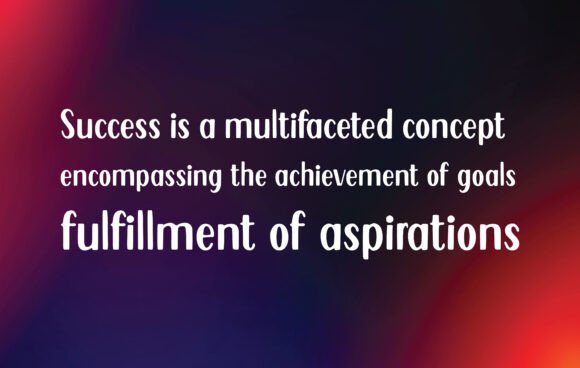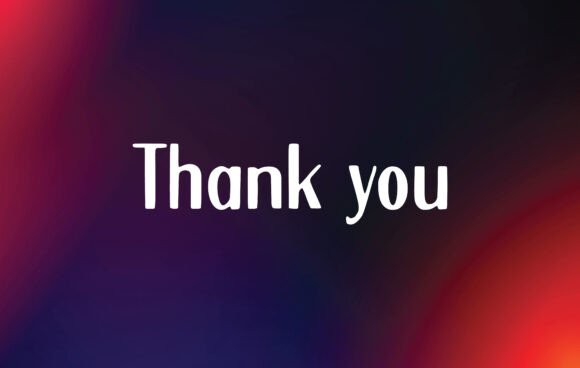
Unleashing Your Creativity: Introducing the Ashton Font
Have you ever been brainstorming a new project and suddenly, the perfect idea strikes you? The words flow effortlessly, and the creative juices start to pump. That’s the magic of design, and the right tools can make all the difference. For designers looking to elevate their craft, we’re excited to introduce the Ashton Font – a beautiful, handwritten font that’s sure to take your creative ideas to new heights.
With the Ashton Font, you’ll be able to create stunning logos, branding materials, and quotes that leave a lasting impression. Its unique charm and elegance make it the perfect choice for designers who want to add a touch of sophistication to their work. Whether you’re working on a personal project or a client assignment, the Ashton Font is a valuable addition to your design toolkit.
Ashton Font Key Features
- Font Family: Ashton is a modern sans-serif font family.
- Unique Characteristics: Ashton Font features a clean and minimalist design, with a focus on legibility and readability.
- Character Set: The font includes a comprehensive character set, including Latin, Cyrillic, and Greek characters, making it suitable for use in various languages.
Ashton Font Review
As a designer, I was excited to dive into the Ashton Font, but my experience was a mixed bag. Let’s break it down.
- Neutral aesthetic: The Ashton Font has a clean, modern design that would work well for a variety of applications, from business cards to digital interfaces.
- Legibility: The font is highly legible, even at smaller sizes, making it a great choice for body text.
- Easy to read: The font’s design ensures that it’s easy to read, with clear distinctions between letters and words.
- Lack of personality: The Ashton Font is a bit too neutral, which can make it feel bland or uninteresting in certain contexts.
- No bold or italic variants: The font’s lack of bold and italic variants limits its versatility and makes it less suitable for applications that require emphasis.
- Not ideal for display text: While the font is legible, it’s not particularly well-suited for display text or headlines, where a bolder, more attention-grabbing font is often preferred.
Overall, the Ashton Font is a solid choice for body text, but it falls short in terms of personality and versatility. With some additional variants and a bit more flair, it could be a real standout. As it stands, it’s a decent but unremarkable font.
1. Use Ashton Font for titles and headings to add a touch of elegance and sophistication.
2. Pair Ashton Font with other elegant fonts to create a beautiful typography.
3. Experiment with different font sizes and colors to create a unique look.
1. Wedding invitations and stationery
2. Luxury brand logos and packaging
3. High-end marketing materials and advertising
Alternatives to Ashton Font
Playfair Display is a luxurious, elegant serif font ideal for creating high-end and sophisticated designs. It features intricate details and ornate flourishes, making it perfect for use in invitations, magazines, and other premium materials. Compared to Ashton Font, Playfair Display has a more elaborate and refined feel, while Ashton Font has a cleaner and more modern look.
Lato is a clean and modern sans-serif font suitable for a wide range of applications, from corporate materials to digital interfaces. It’s highly legible and versatile, making it an excellent choice for body text and headings. Unlike Ashton Font, Lato has a more straightforward and minimalistic design, while Ashton Font has a slightly more decorative feel.